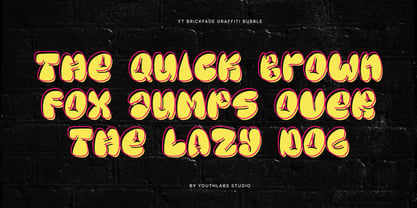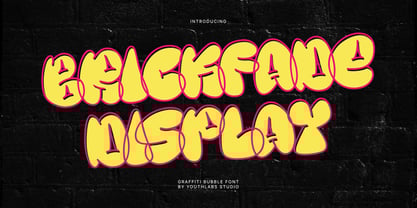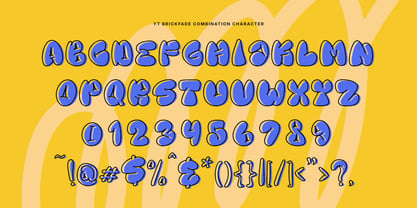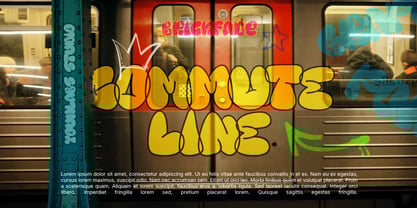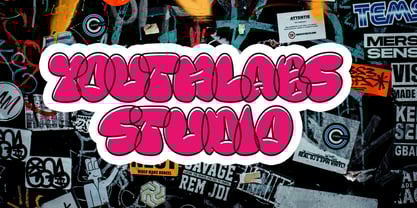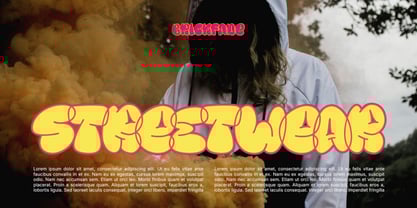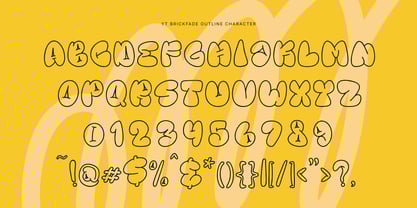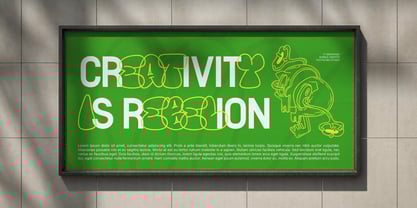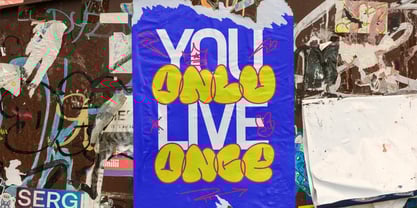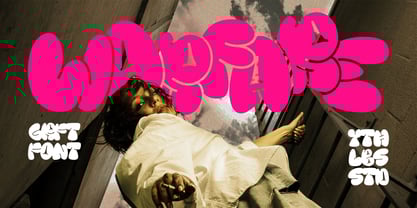
YT Brickfade
by Youthlabs
The YT Brickfade Font Family was designed by Fathi Al Ghazi and published by Youthlabs. YT Brickfade contains 2 styles and family package options. More about this family
YT Brickfade is a bold, street-smart graffiti display font built for rebellious visuals and urban vibes. Inspired by the raw textures of brick walls and the soft fade of aged spray paint, this typeface blends thick, outlined bubble forms with a street-art soul. Perfect for branding projects, album covers, apparel, stickers, posters, or anything that craves that gritty, expressive edge.
With playful loops and sharp curves, YT Brickfade brings attitude to every letter. Whether you’re designing for hip-hop events, streetwear brands, or edgy digital content, this font is your go-to for making noise and leaving a mark.